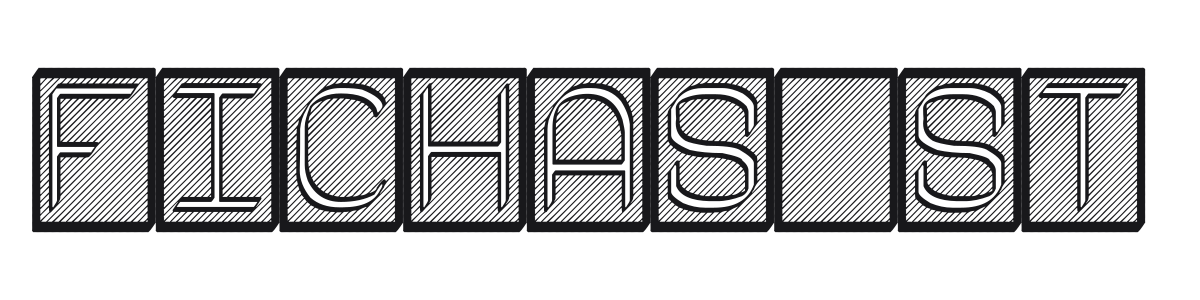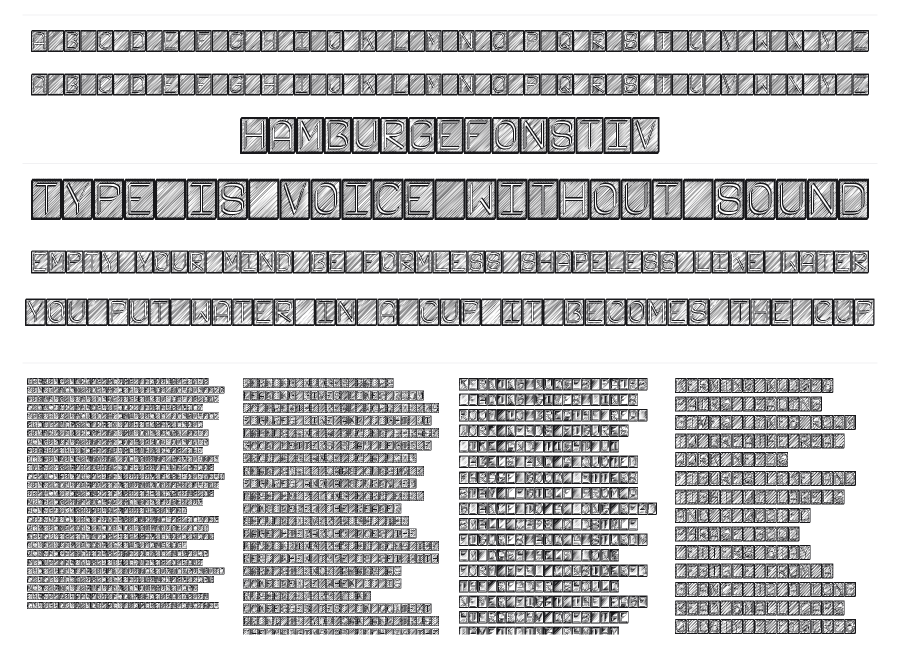
Fichas ST
Fichas ST wraps every character inside its own thick rounded-square tile, like letters stamped onto playing cards or game pieces. The interior letters feature a double inline stroke over a diagonal-hatched background, creating a dense, engraved texture with strong graphic contrast. It reads instantly as a display face for bold, playful, or retro-industrial contexts.